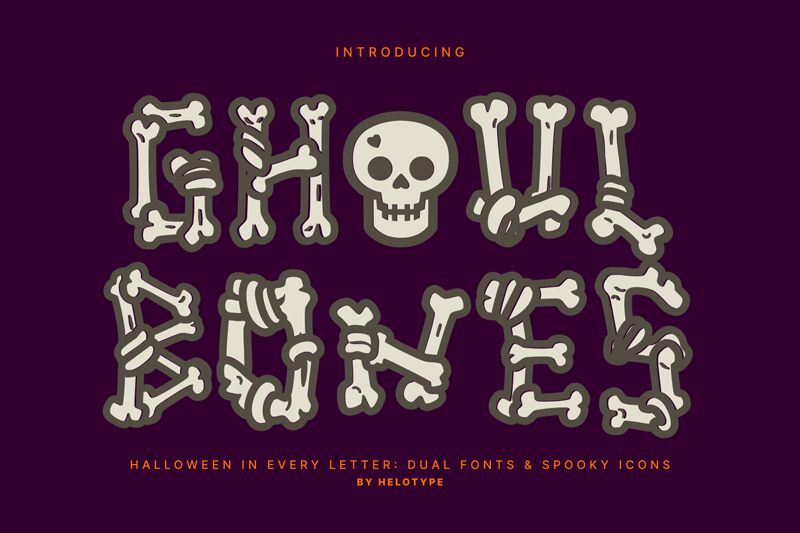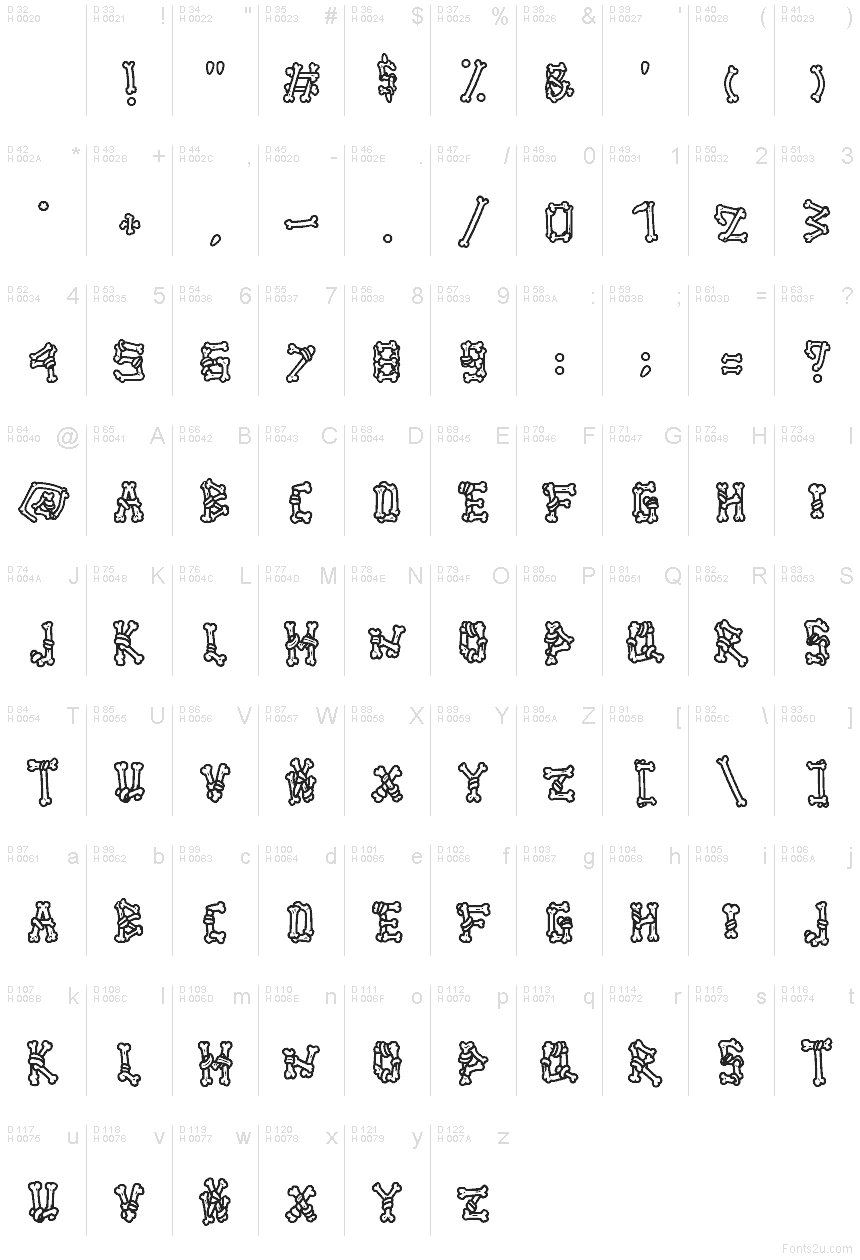
Ghoul Bone - Personal Use Outline
Ghoul Bone Outline font by Helotype is a free Halloween display font built from a tangle of cartoon bones with crisp, inky outlines. Part of the Ghoul Bone family, its hollow forms keep things readable while still dripping with campy, graveyard charm—knobby joints, chunky curves, and a hand-drawn wobble that feels delightfully creaky rather than gory.
Using Ghoul Bone Outline, headlines snap to attention on haunted house flyers, trick-or-treat posters, party invites, escape-room signage, seasonal menus, and YouTube thumbnails. The airy outline takes color beautifully and scales well for big, shouty titles. Pair this free font with a simple geometric sans for body copy, and keep tracking slightly tight to keep the bone lattice feeling cohesive.